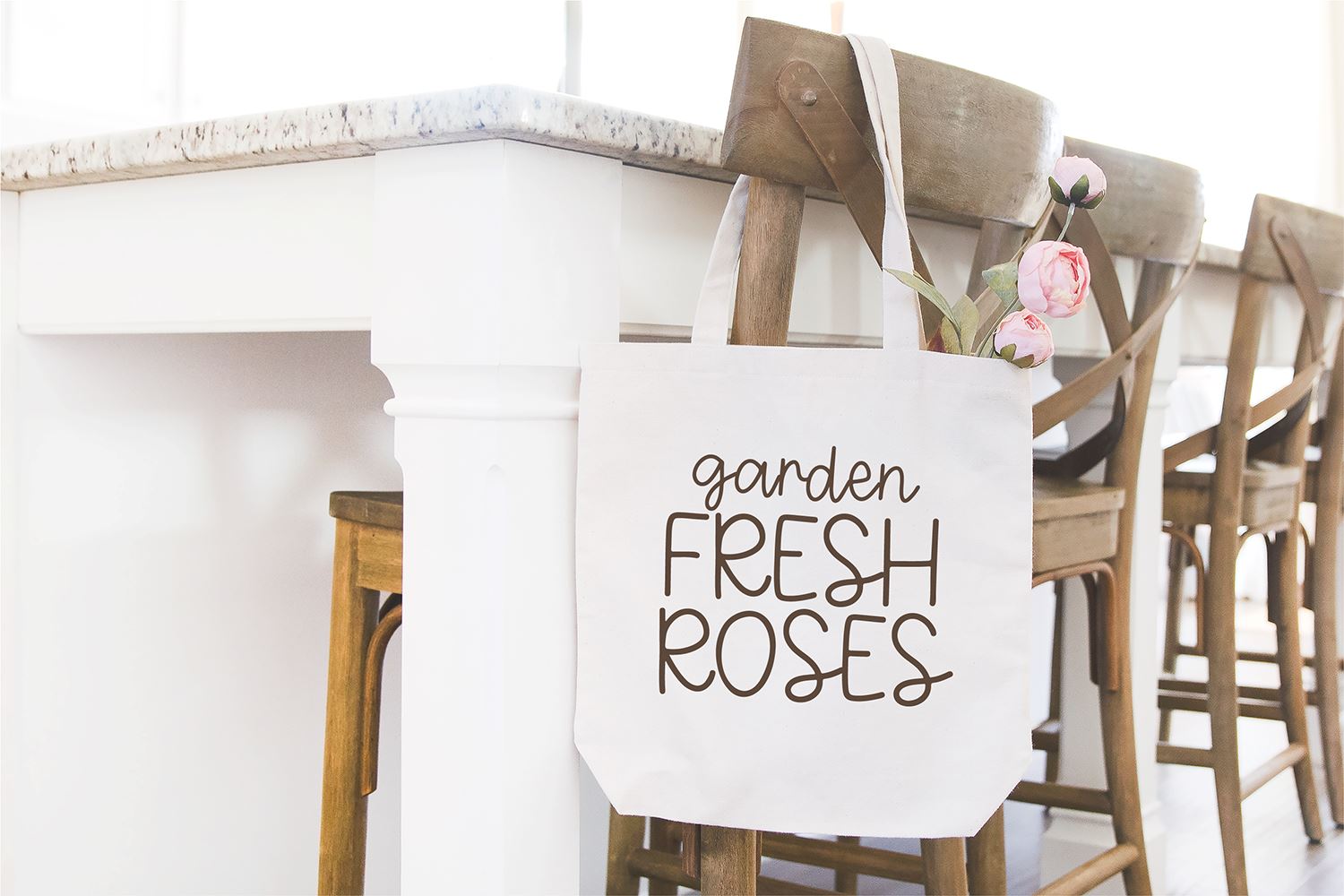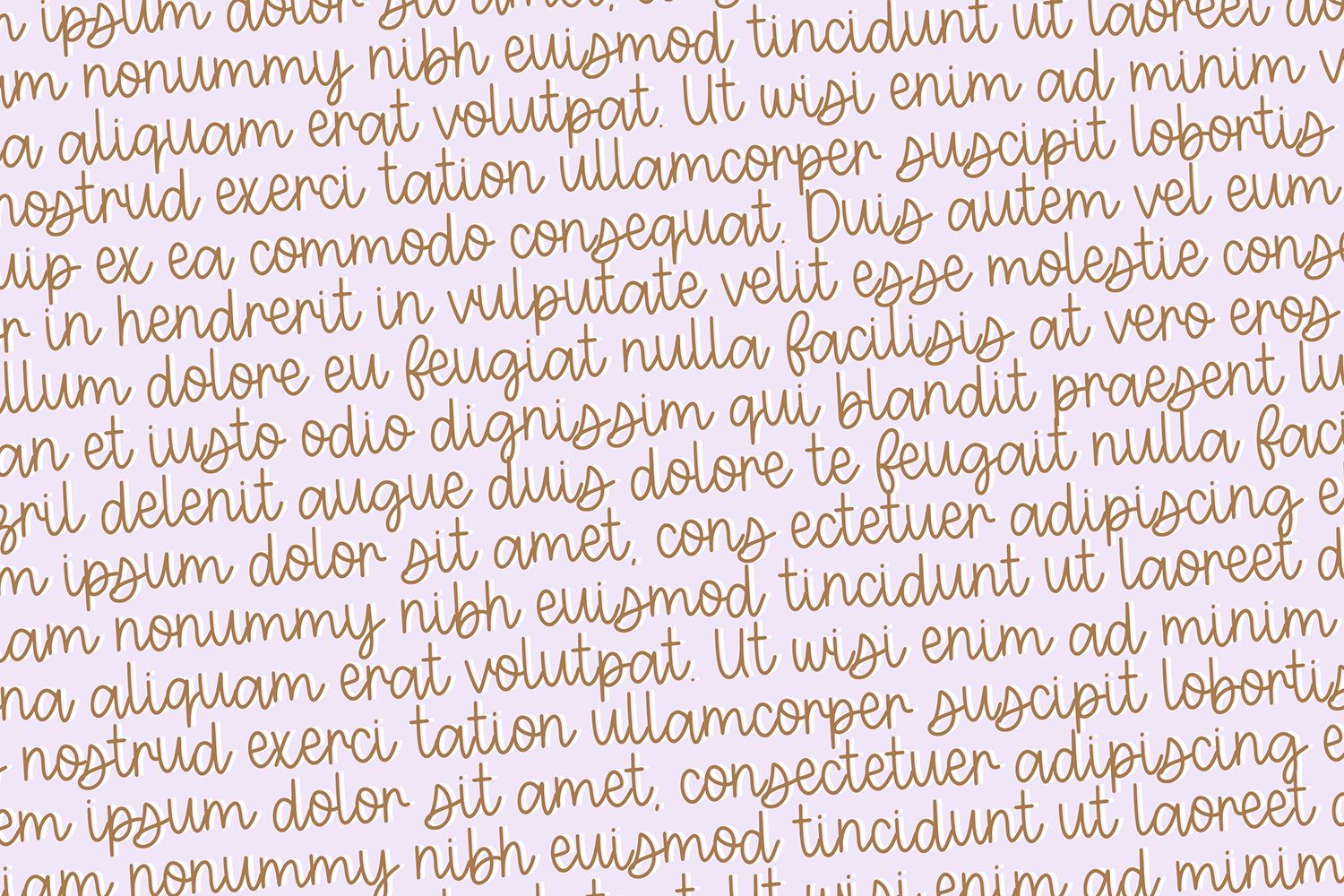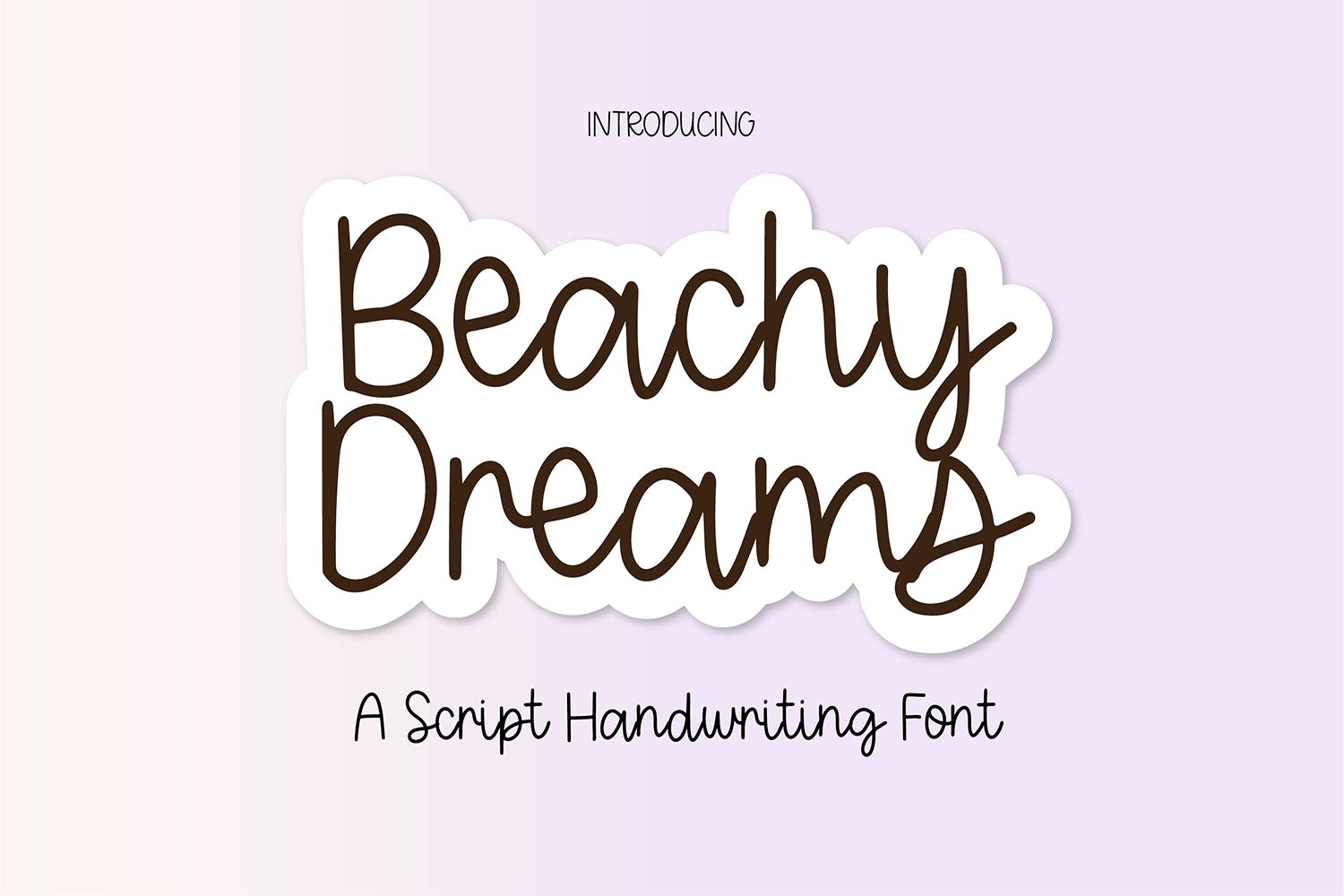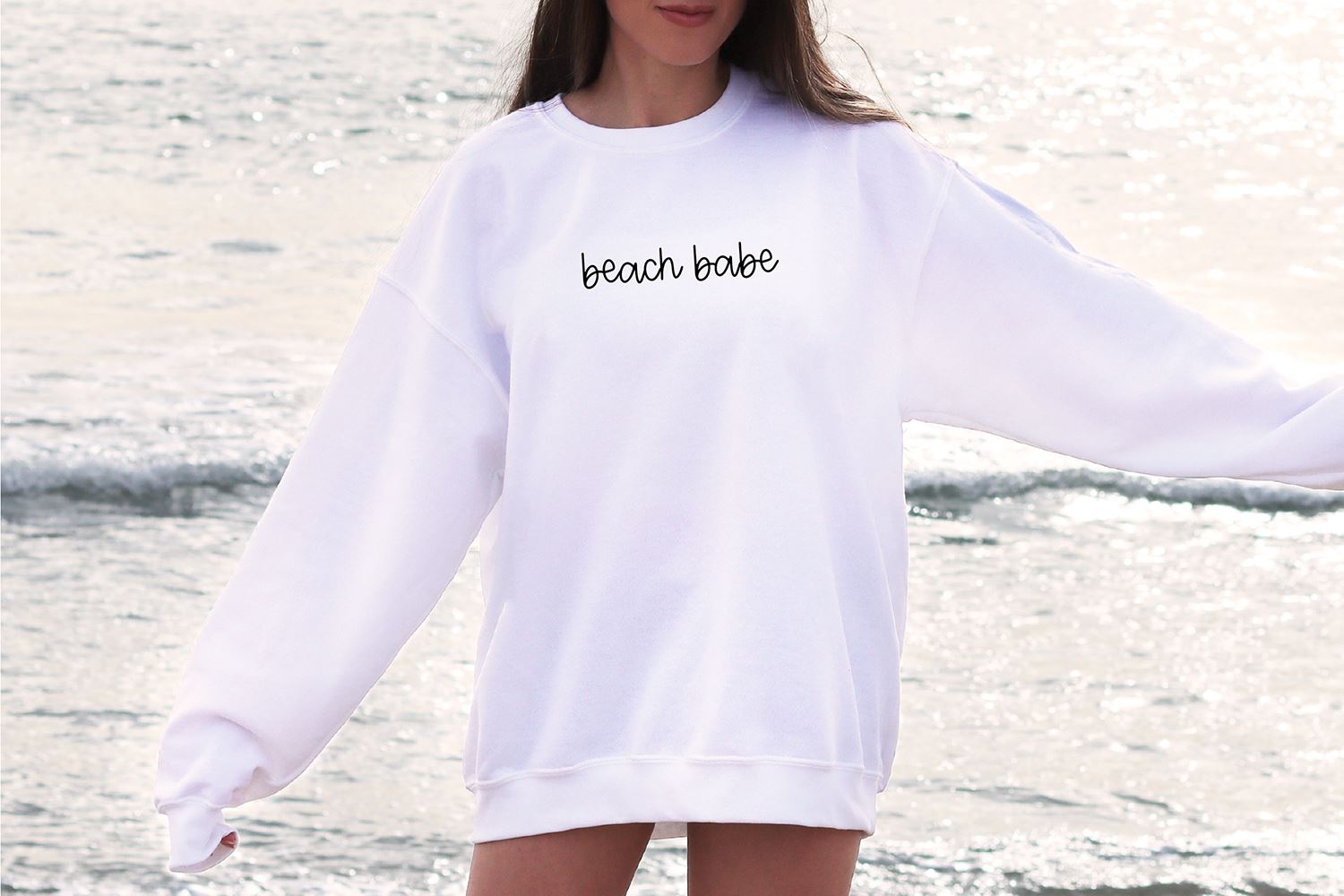
Beachy Dreams Cursive Handwriting
About Beachy Dreams Cursive Handwriting
\”Beachy Dreams\” cute script cursive handwriting font. Beachy Dreams is a cute pen script handwriting font that is perfect for social media or goodnotes or digital planning. Use it for branding, crafts for decor, invitations, and more! This font includes upper and lowercase glyphs, numbers, basic punctuation marks.